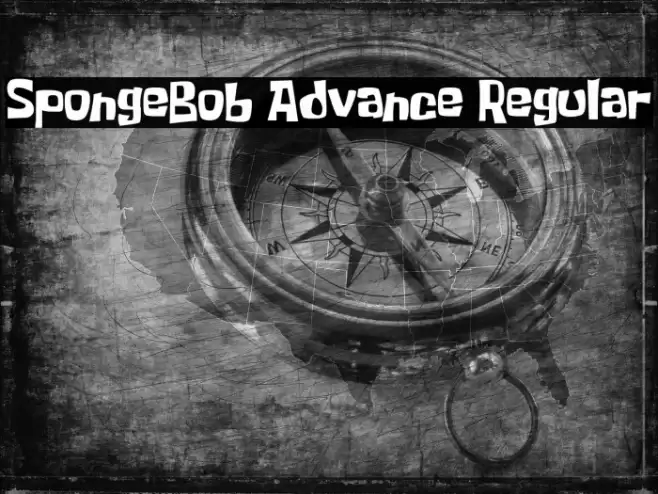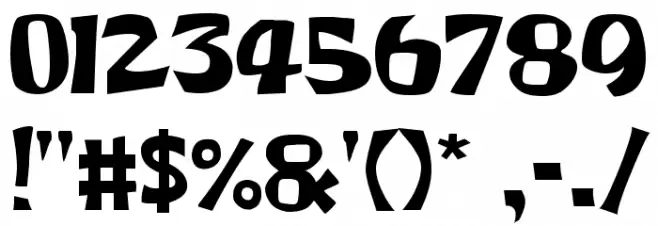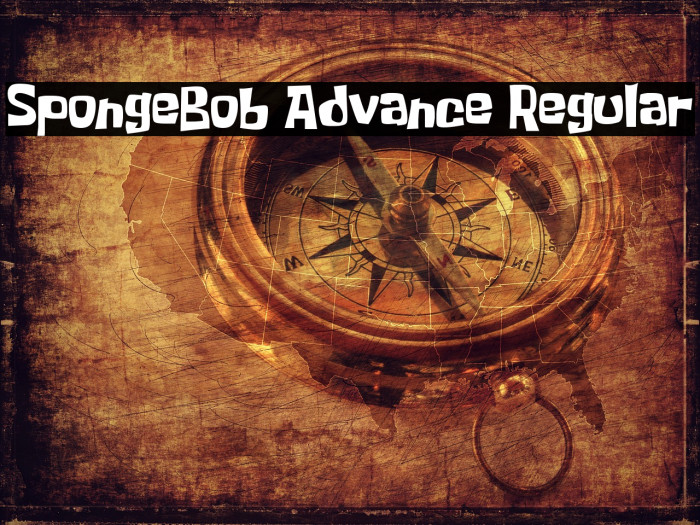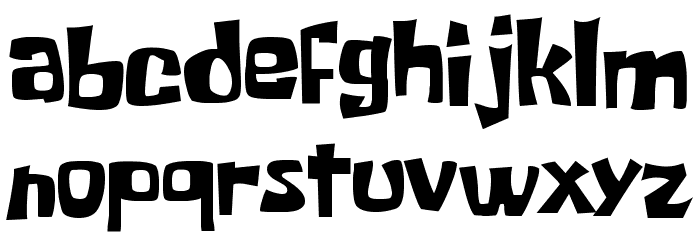
SpongeBob Advance Regular Font
SpongeBob Advance Regular Description
This playful and whimsical font features bold, uneven strokes that give it a lively and animated appearance. The characters are slightly irregular, adding a sense of fun and spontaneity. The uppercase letters have a strong presence with their wide, blocky forms, while the lowercase letters maintain a quirky charm with their varied heights and angles. Numbers and special characters follow the same playful style, making the font suitable for creative and informal designs. The overall look is reminiscent of hand-drawn lettering, perfect for capturing attention and conveying a sense of joy and creativity.
A playful, bold font with uneven strokes and a whimsical, animated style from Cartoon fonts.
- Proposed Projects: Ideal for children's books, cartoon titles, playful branding, and creative posters.
- Overall Style: Playful, Whimsical